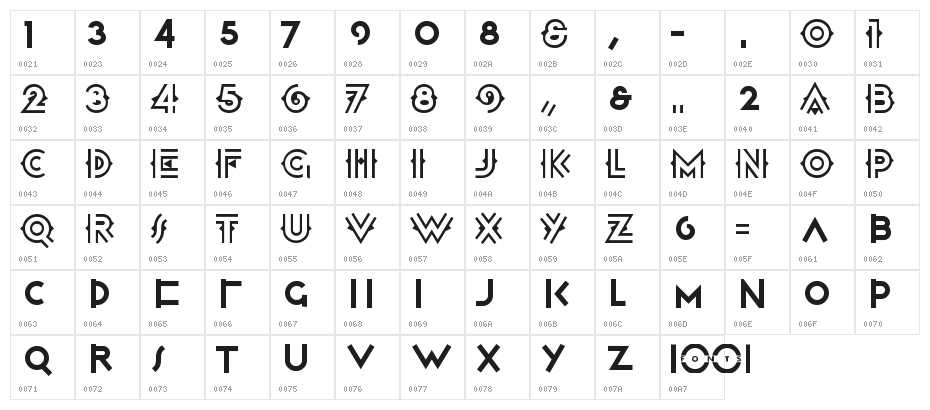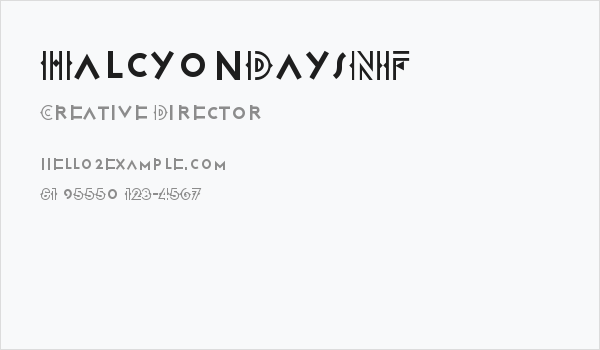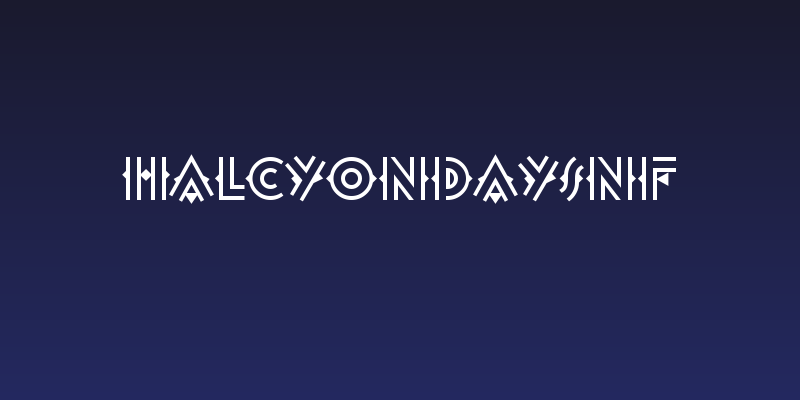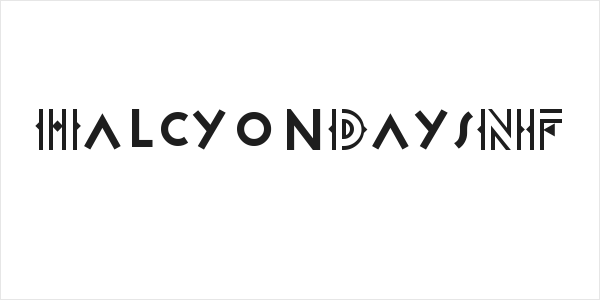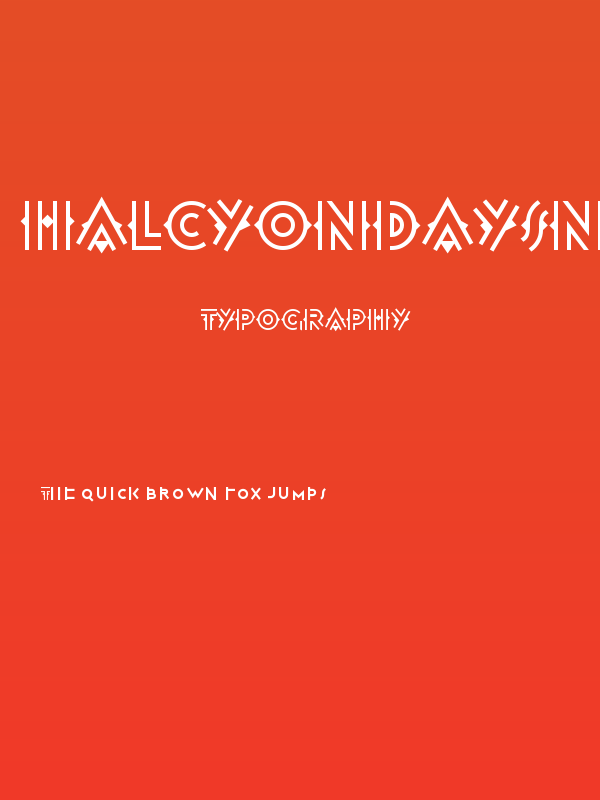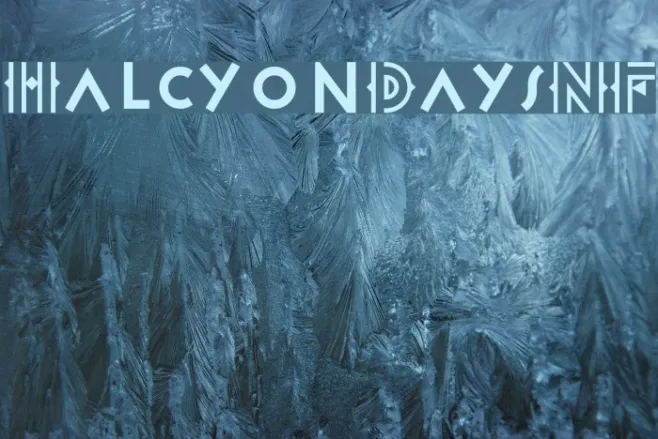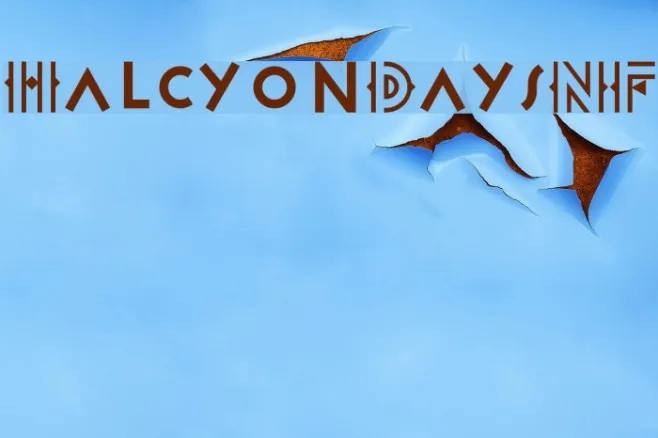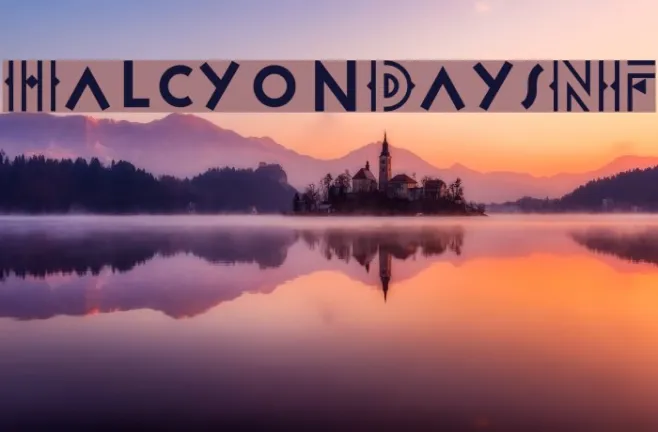
HalcyonDaysNF Font
HalcyonDaysNF Description
This font features a bold and geometric design with a distinct Art Deco influence. The uppercase letters are characterized by sharp angles and clean lines, creating a sense of movement and dynamism. The lowercase letters maintain a similar geometric style, offering a cohesive look across different text cases. The numerals are uniquely styled with a combination of circular and angular elements, adding to the font's decorative appeal. Special characters are designed to match the overall aesthetic, making this font suitable for creative and eye-catching designs.
| Proposed Projects | This font is perfect for projects that require a vintage or retro feel, such as posters, branding, and packaging. It can also be used effectively in headlines and titles to draw attention. |